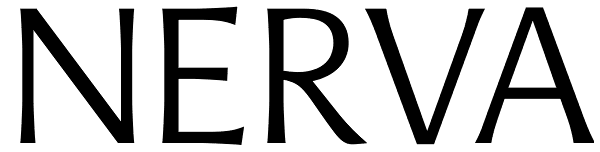
Nerva
This is the kind of serif/sans serif typefaces that I always liked so much (like Optima by Mr. Herman Zapf that was always a great inspiration to me). Complete horizontal baseline with curve vertical stems give this font a more rigid and roman look...
Nerva Ligatures
Nerva SC
Nerva UC